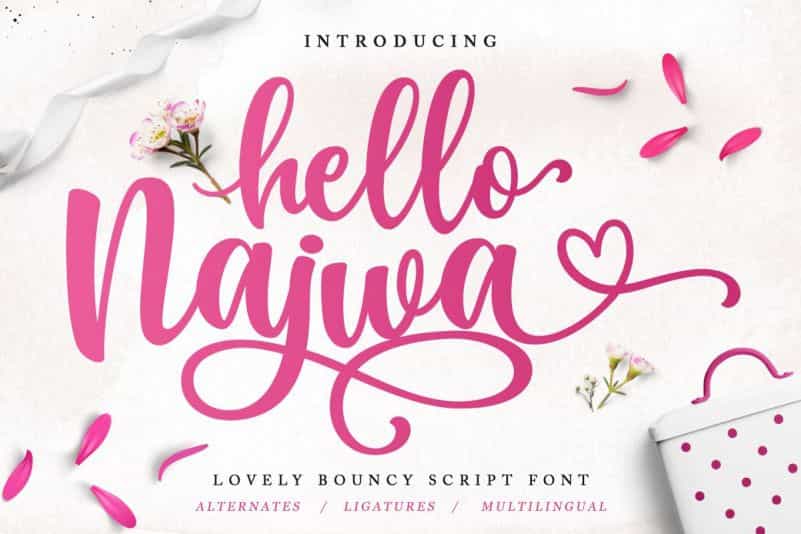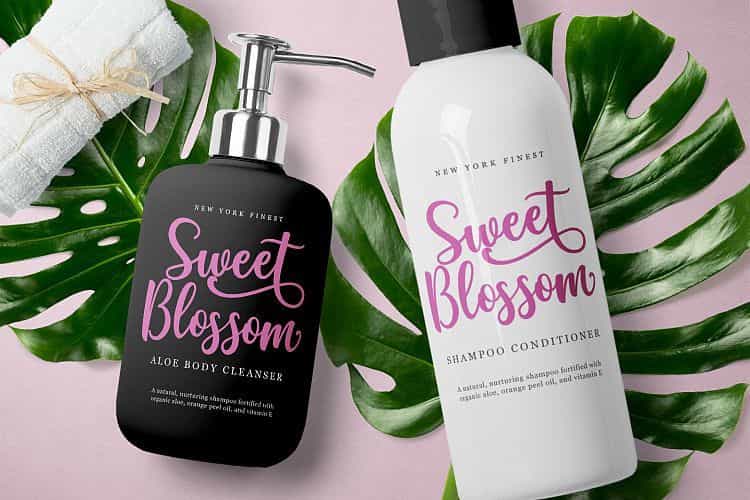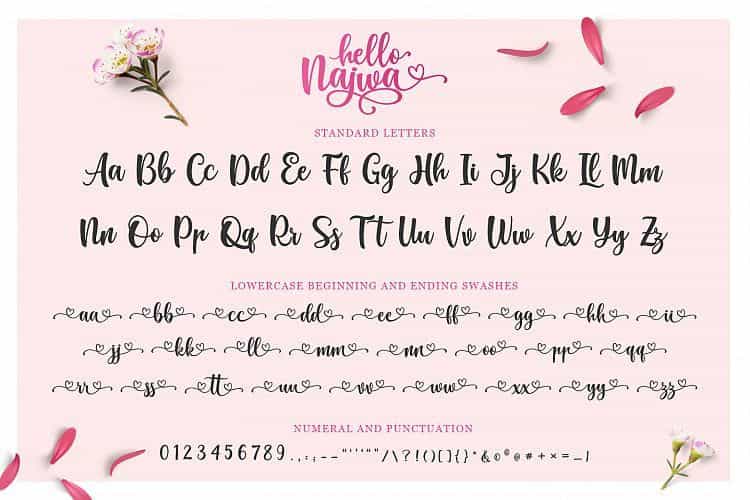
Introducing Hello Najwa Font. This is a design that is credited to Kotak Kuning Studio. It is a beautiful bouncy script font with a natural and stylish handwriting look to it. Ideal for making stylish statements or simply to bring an air of sophistication to your creations. This script has many beautiful alternates character in its OpenType features, which makes the font appear stunning.